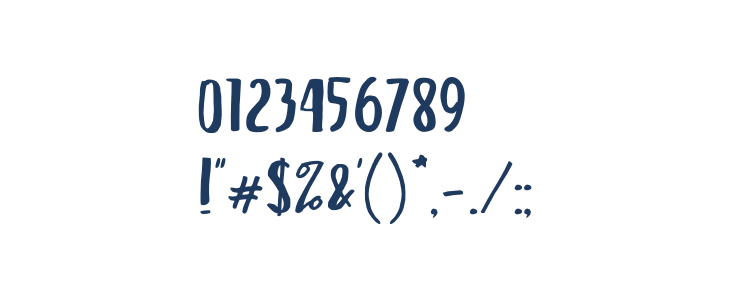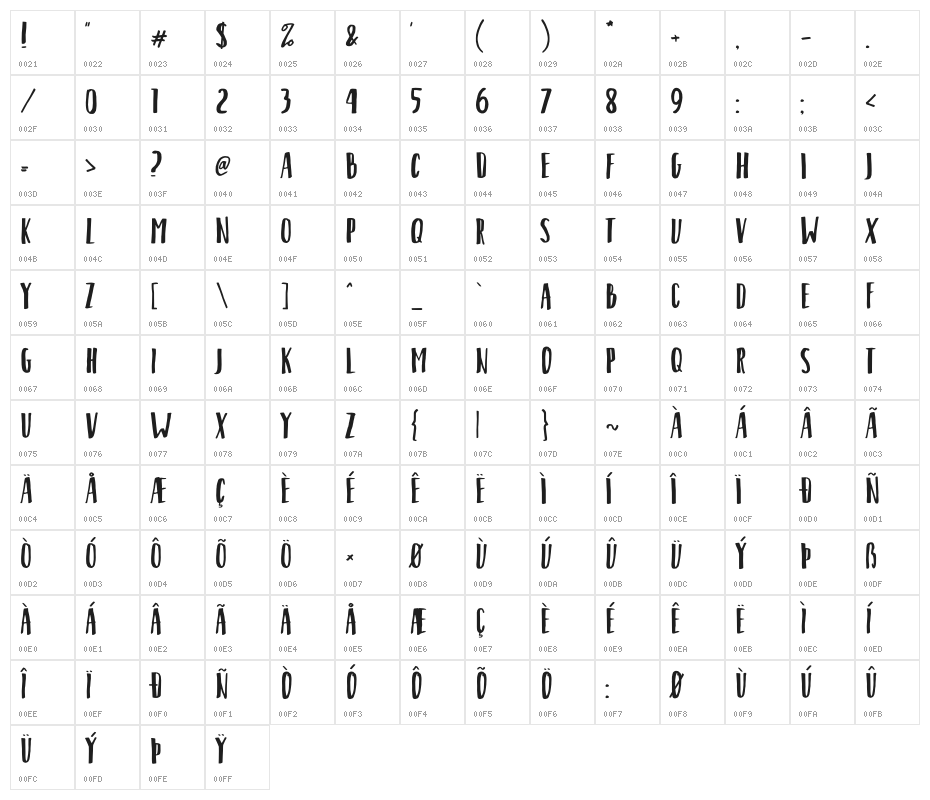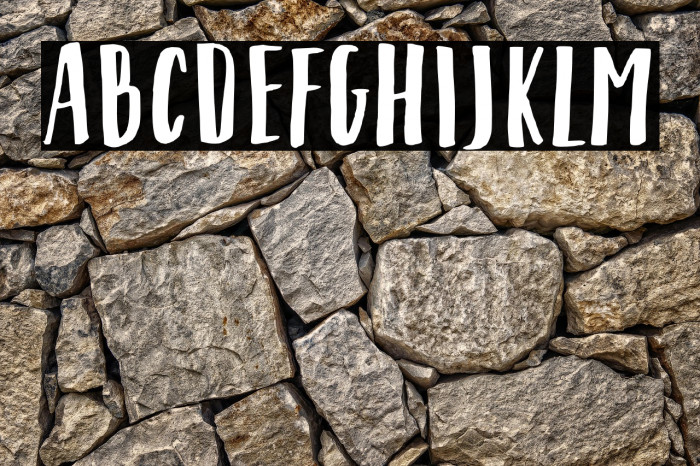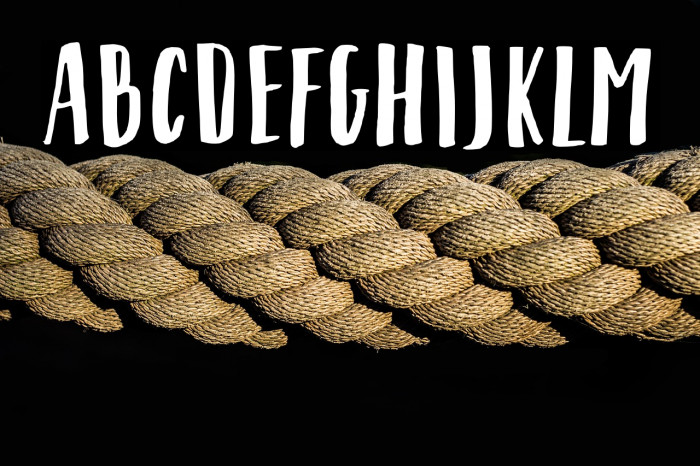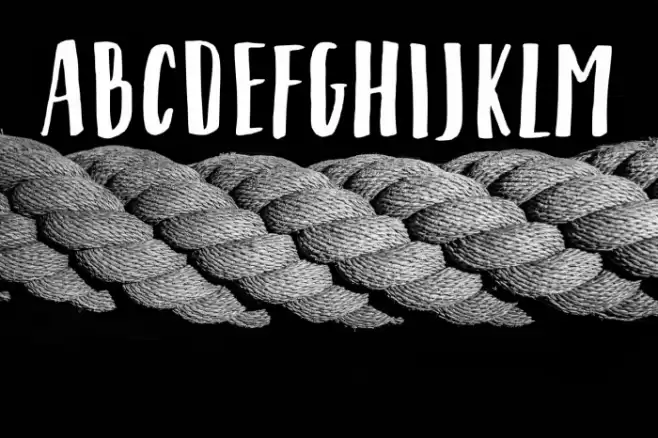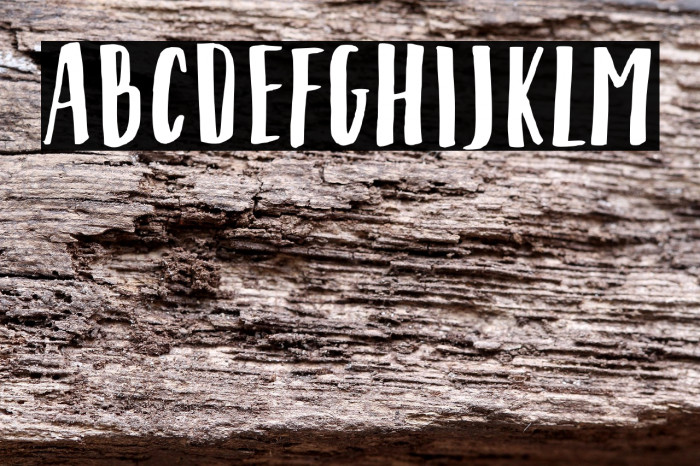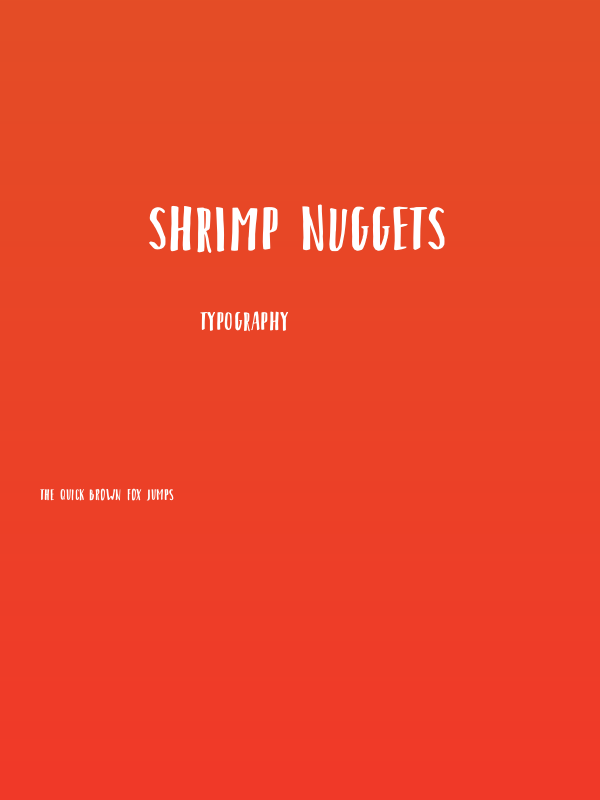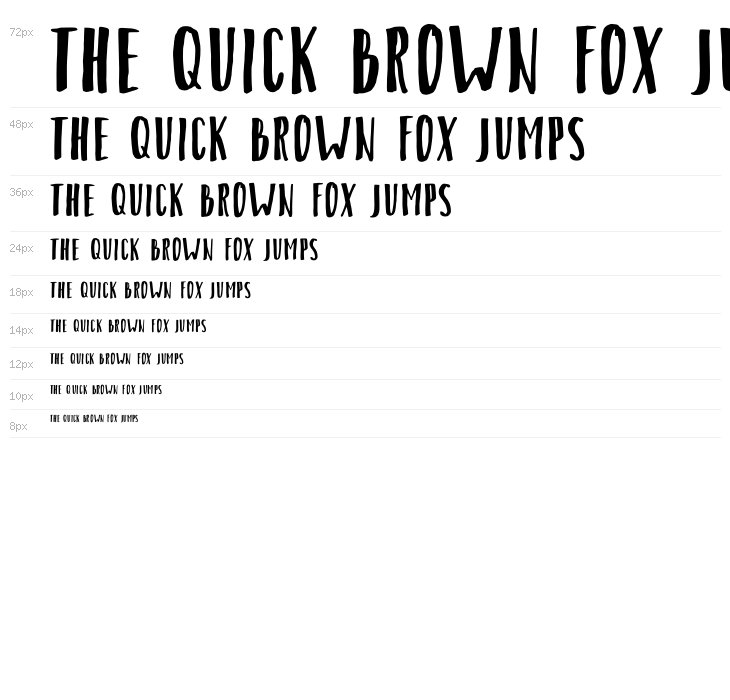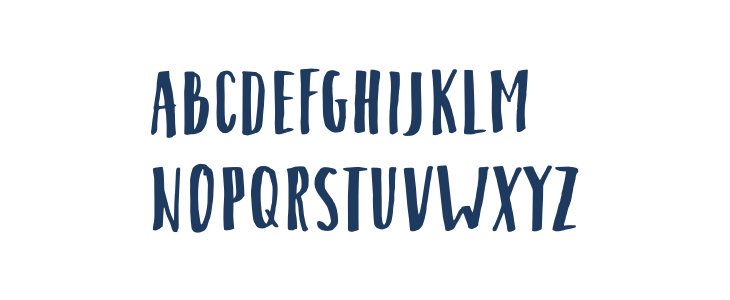
Shrimp Nuggets Font
Shrimp Nuggets Description
This font features a playful and bold handwritten style, characterized by its irregular and dynamic strokes. The letters have a slightly uneven baseline, giving it a casual and informal appearance. The uppercase and lowercase letters maintain a consistent style, with rounded edges and varying stroke widths that add to its charm. The numbers and special characters follow the same aesthetic, ensuring a cohesive look across all text elements. This font is perfect for projects that require a fun and lively touch, such as children's books, posters, or creative branding.
| Overall Style | Playful, Casual |
| Use Case | Headlines, Posters, Creative Branding |
| Proposed Projects | Ideal for children's books, playful posters, creative branding, and informal invitations. |